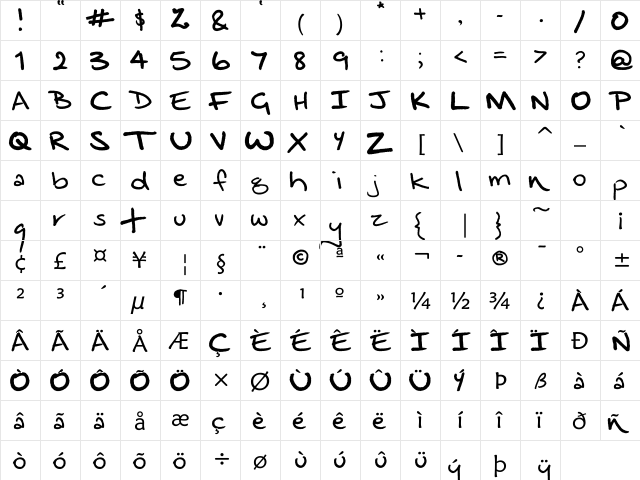
Dragongirl Meander Boggled
Design Context for Dragongirl Meander Typeface
Dragongirl Meander is a composed and adaptable typeface that performs quietly and consistently across a wide range of design contexts.